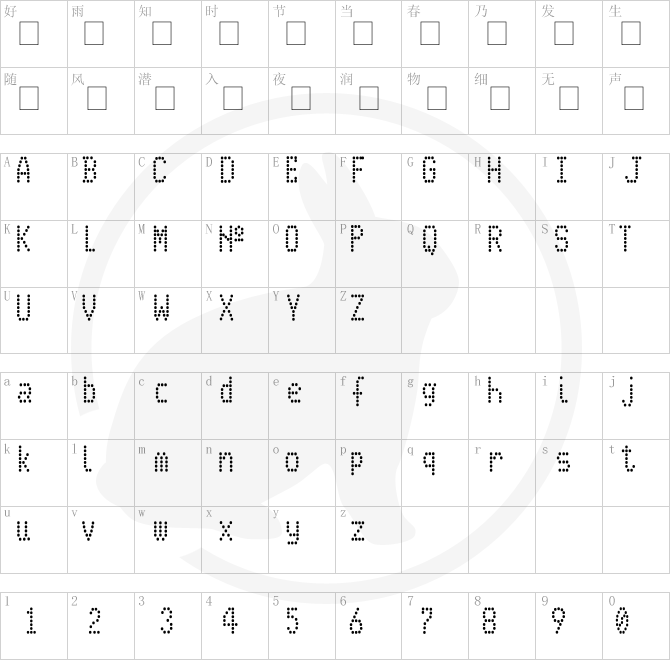
• Font Name:J_EKR
• Subfamily:FontMonger:J_EKR
• Full Name:J_EKR
• PostScript:J_EKR
J_EKR.ttf is a very beautiful artistic font, J_EKR.ttf is widely used in the design and printing of various books and pictures,J_EKR.ttf has a strong visual impact,J_EKR.ttf is a commonly used font in newspapers, magazines and books, and is used in posters, e-commerce Poster design, store design, logo design, font design and other fields.J_EKR.